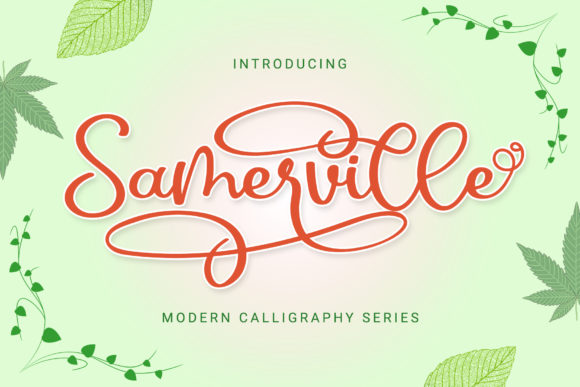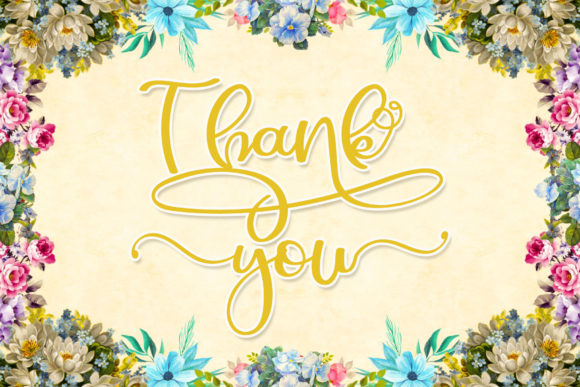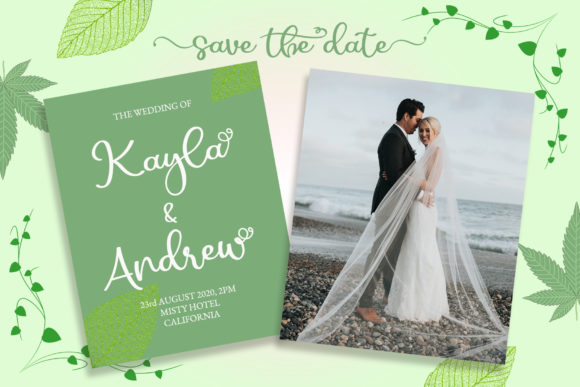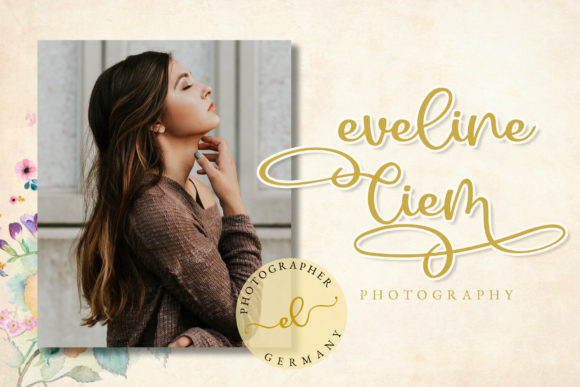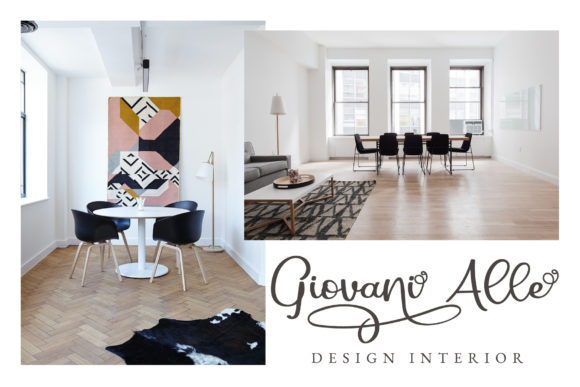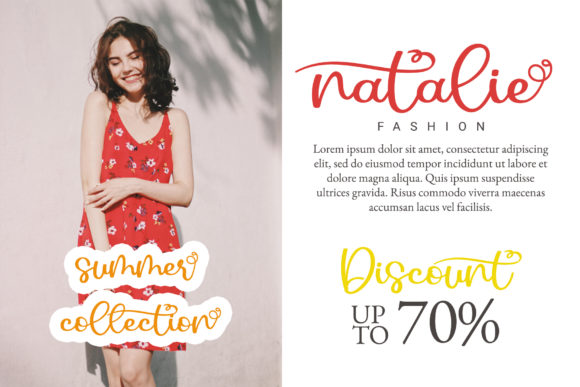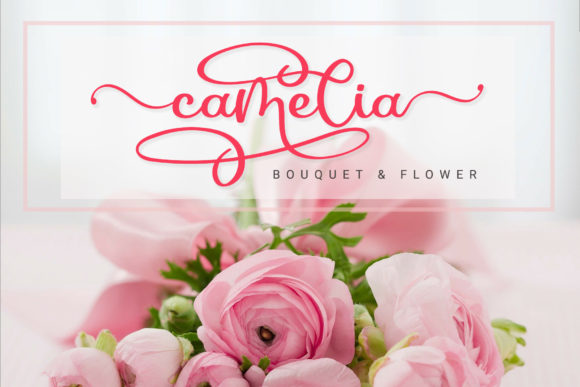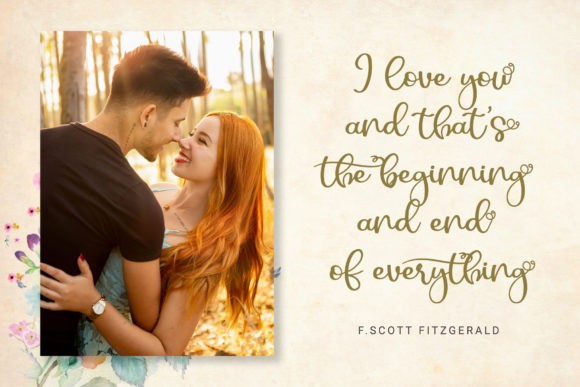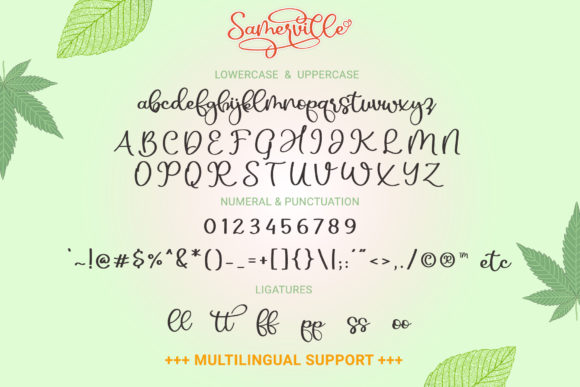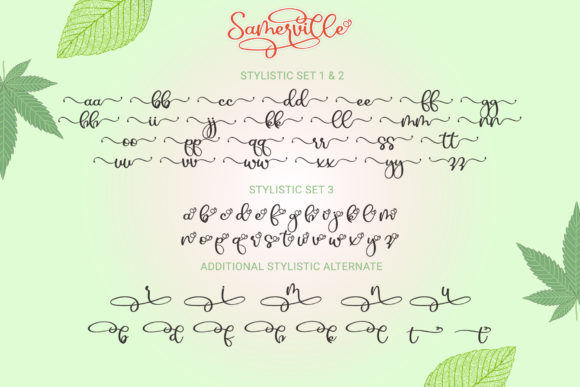
Samerville Font
About Samerville Font
Samerville is a cute and casual script font. It can be applied to a wide range of design projects. Fall in love with its romantic charm!